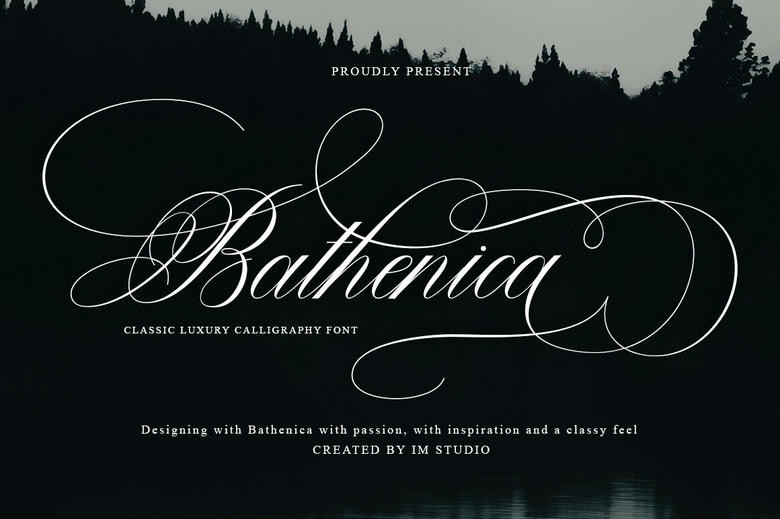
Bathenica Font
Bathenica is a calligraphy script font that exudes ageless refinement. What sets Bathenica apart is its fine interweaving of womanly charm and elegance, combined with an amorous touch that naturally emanates allure.
With seamless letter interactions, it offers exceptional readability, while the diversity of styles for different characters enhances the creative flexibility in your projects. Bathenica is far more than a simple alphabet; it’s an artful language in its own right. Experience the transformation of your work with the serene sophistication of Bathenica.
Bathenica Calligraphy Script Font